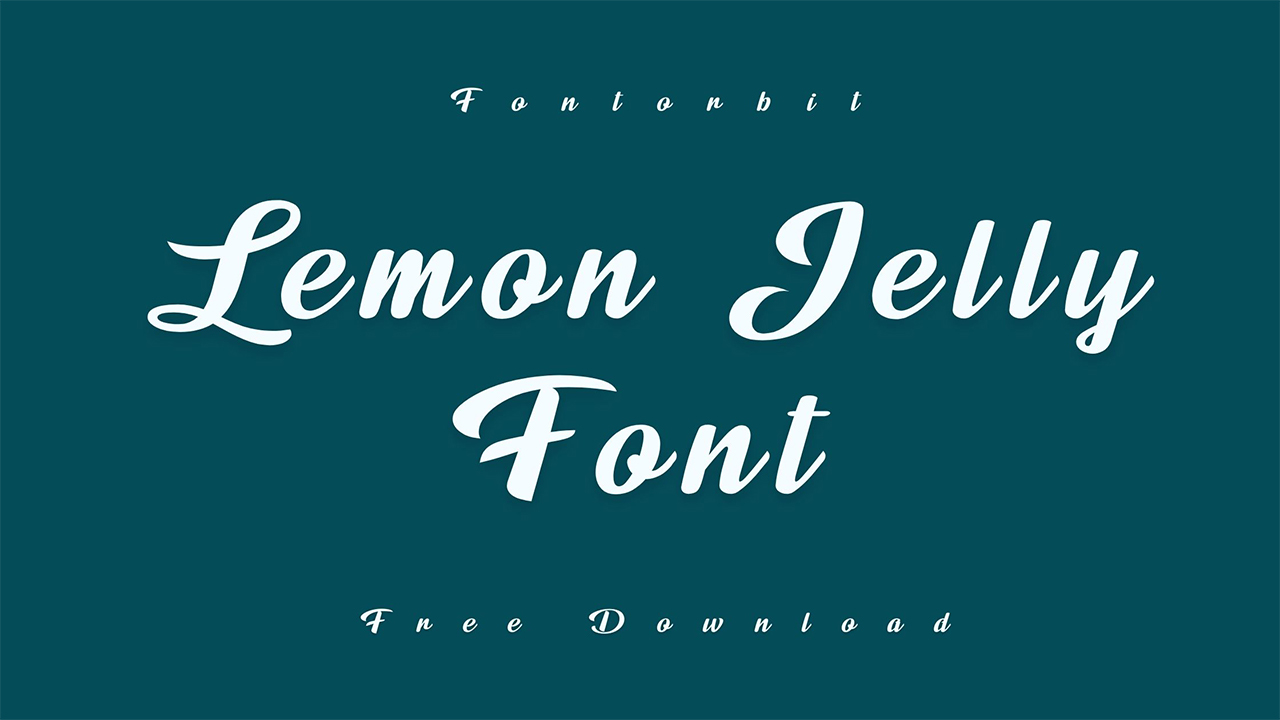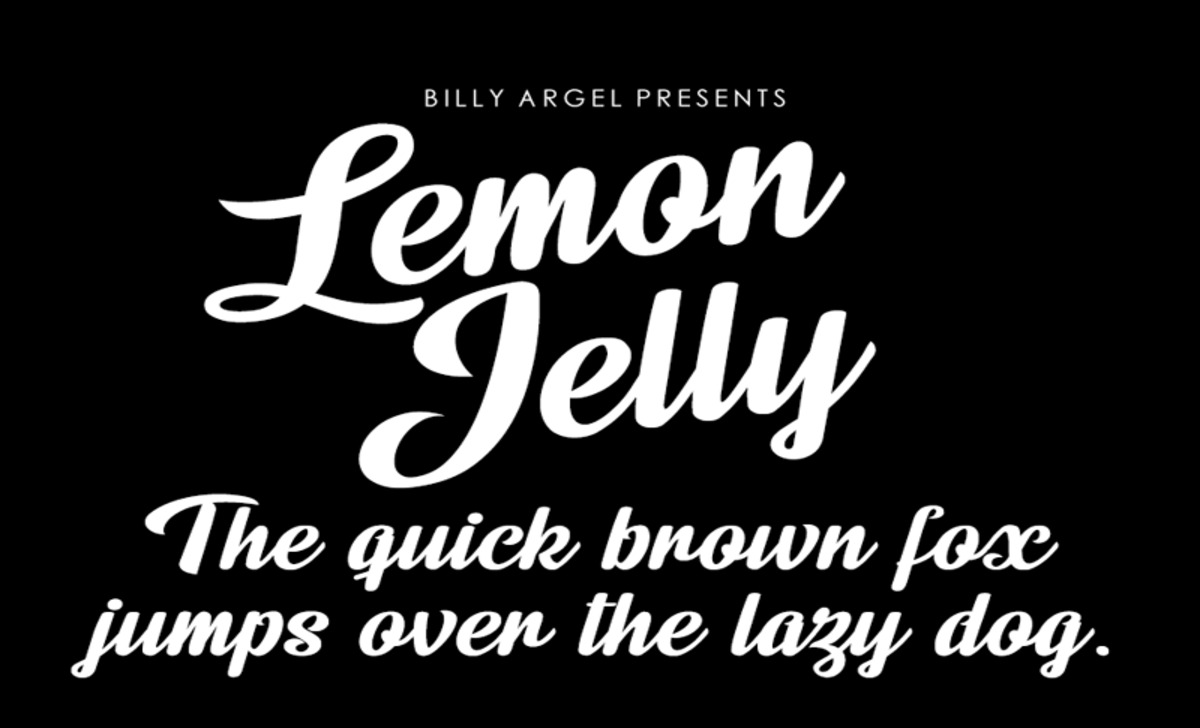
Lemon Jelly is a distinctive script font designed by Billy Argel, first released in June 2018. Renowned for its stylish, cursive appearance, it has a PostScript name of “Lemon Jelly Personal Use” and a glyph count of 310.
It supports a wide range of characters and variations. The font is created with a pattern nature of italics and set at 1000 units per em. Ideal for personal use, this font is perfect for those seeking a unique, handwritten flair.
The Lemon Jelly Font Family
The Lemon Jelly font family includes only one style available. As you know, this script font is elegant and features a cursive design, so it’ll add a handwritten charm to your text. It offers extensive design flexibility with 310 glyphs, including unique characters and variations.
Supporting 55 languages, it ensures versatility for various linguistic needs. This font is semi-bold with a medium width. It features an italicized style that adds a dynamic, stylish texture to your designs.
Notable Uses: Lemon Jelly Font
- Personal Invitations
- Custom Greeting Cards
- Artistic Posters
- Creative Social Media Graphics
- Stylish Event Programs
Lemon Jelly is often used in designs where a unique, stylish script is desired. Its elegant appearance pairs well with other fonts and can create an impressive visual impact in both digital and print formats. It’s ideal for various personal design projects, offering a chic and stylish touch.
Final Words
Lemon Jelly is perfect for designers looking to add a touch of sophistication and personal flair to their work. Use font editing software like FontForge or Glyphs to modify Lemon Jelly’s glyphs or add unique variations while preserving its original style.
The font is best used at larger sizes (24pt and above) for headlines and titles to highlight its unique script style. Its stylish script and versatile glyph set make it a valuable tool for various creative applications.
2.What Are The Different Weights Available In Lemon Jelly Font?
Lemon Jelly is available in a single weight: Semi-bold.
3.How To Create A Modern Look Using Lemon Jelly Font?
Combine Lemon Jelly with clean, minimal sans-serifs and use ample white space to enhance its stylish script and achieve a contemporary design.
6.How To Use Lemon Jelly Font In A Design?
Incorporate Lemon Jelly for headings, titles, or accent text to add an elegant, handwritten style. Pair it with clean fonts for balance.
9.What Are The Best Pairings For Lemon Jelly Font?
Pair Lemon Jelly with clean sans-serifs like Helvetica or minimal serifs like Playfair Display for a sophisticated, balanced design.